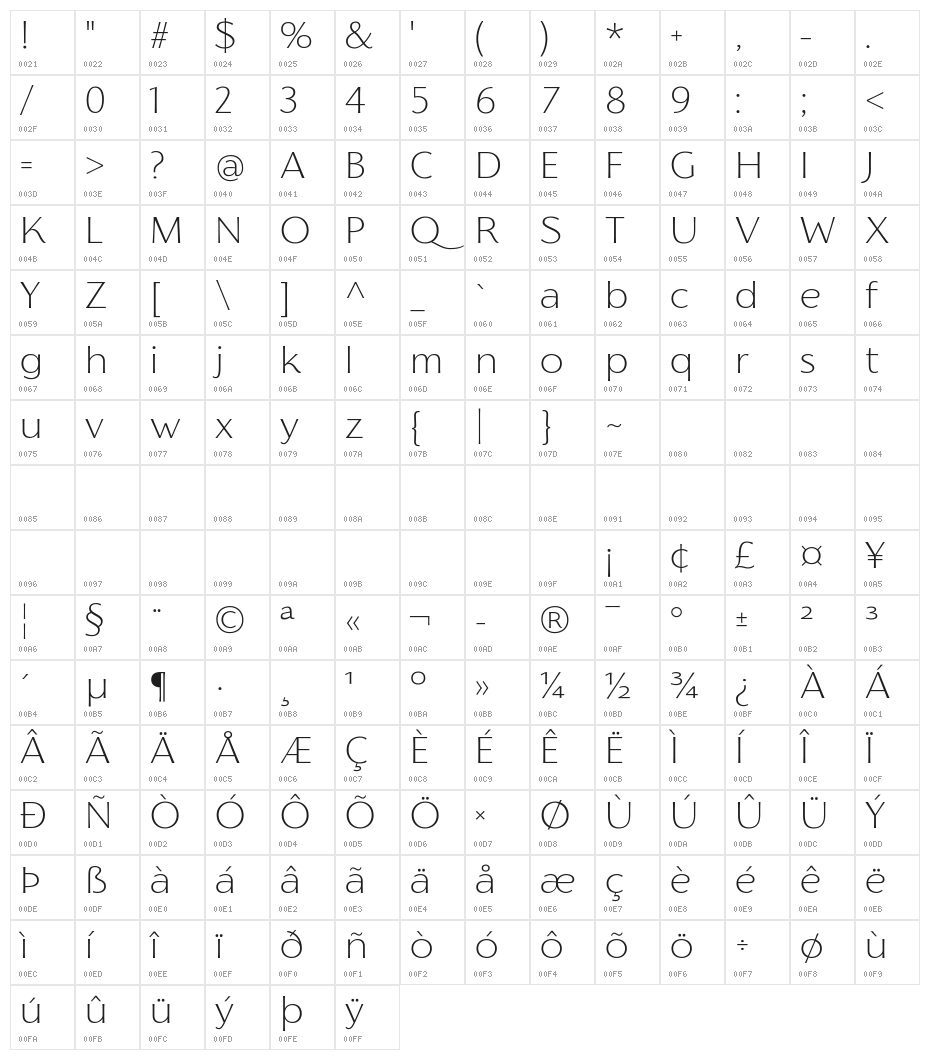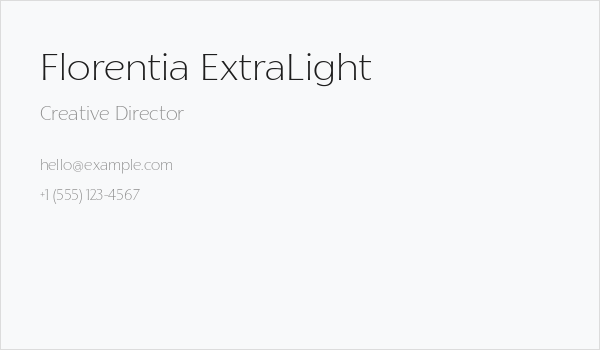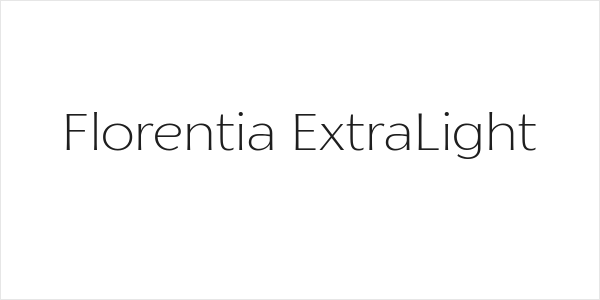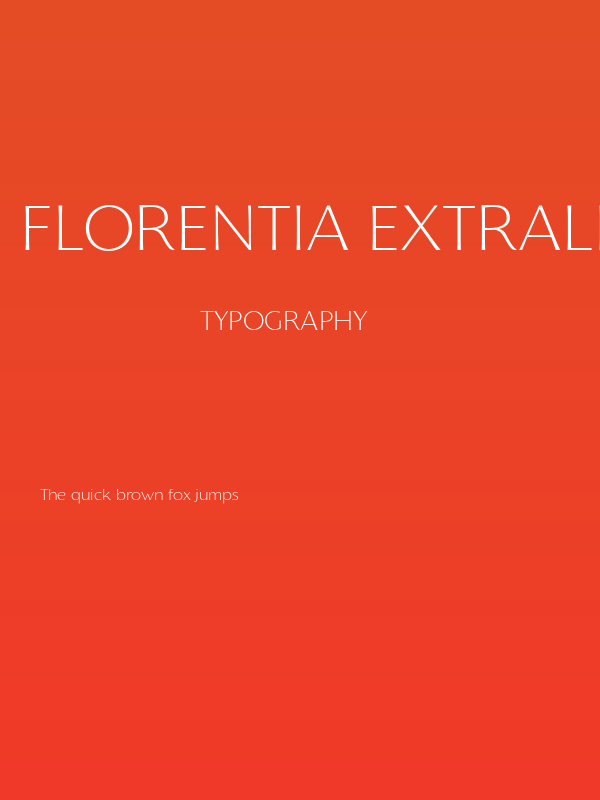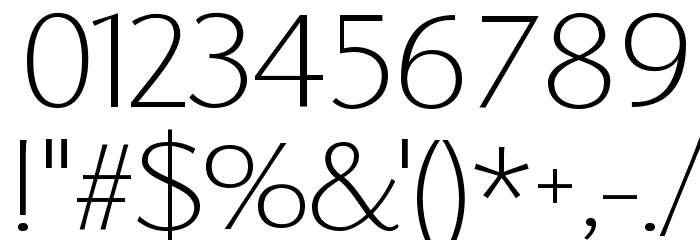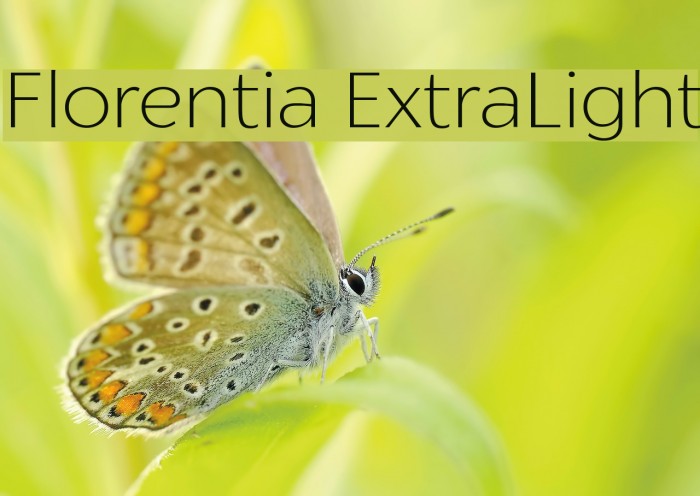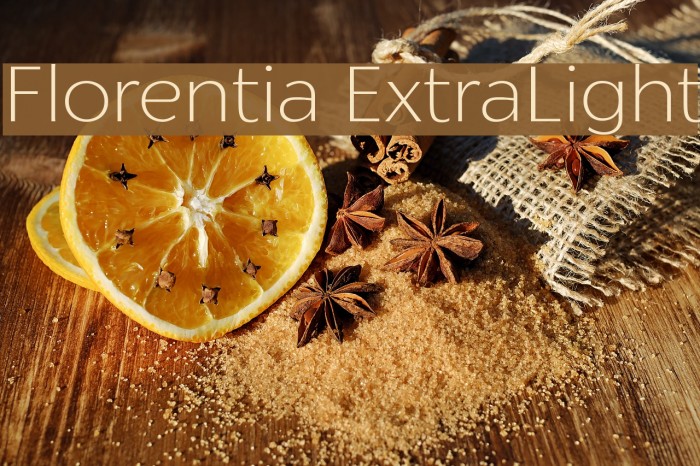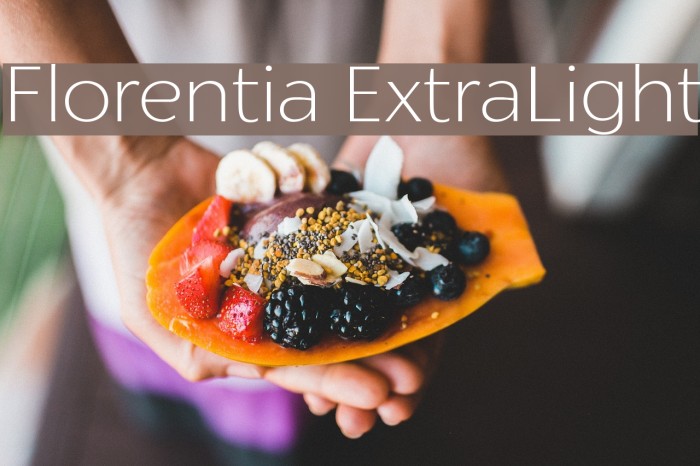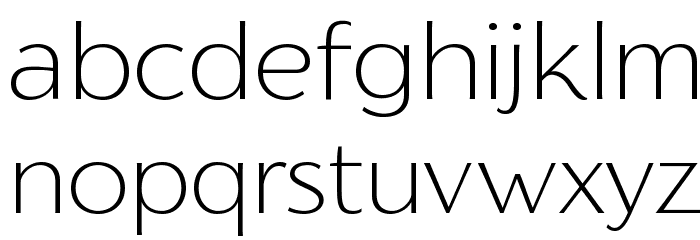
Florentia ExtraLight Font
Florentia ExtraLight Description
This typeface embodies a sleek and modern aesthetic with its clean lines and minimalistic design. The characters are elegantly crafted with a uniform stroke width, contributing to a harmonious and balanced appearance. The uppercase letters are tall and commanding, while the lowercase letters maintain a consistent height, enhancing readability. The numerals are clear and straightforward, making them suitable for various applications. Special characters are well-integrated, maintaining the overall style of the font. This typeface is versatile, offering a contemporary feel that can be adapted to numerous design contexts.
| Proposed Projects | Ideal for branding, editorial design, digital interfaces, and corporate materials. |